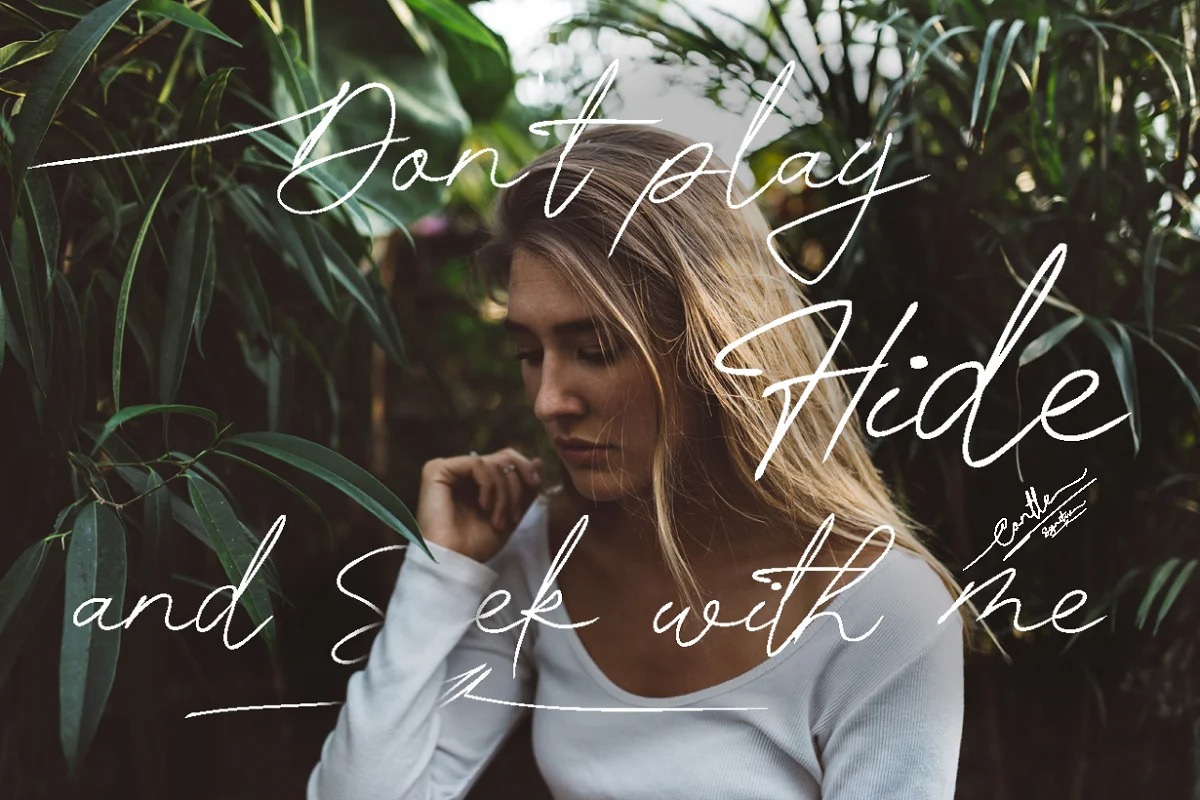
Contle Font
Contle Handwritten Font
This font is a beautiful and modern signature calligraphy script. It has a subtle style and will add a touch of class to your designs. Ideal for logos, name tag, handwritten quotes, product packaging, merchandise, social media & greeting cards. It contains a full set of lower & uppercase letters, a large range of punctuation, numerals, and multilingual support.